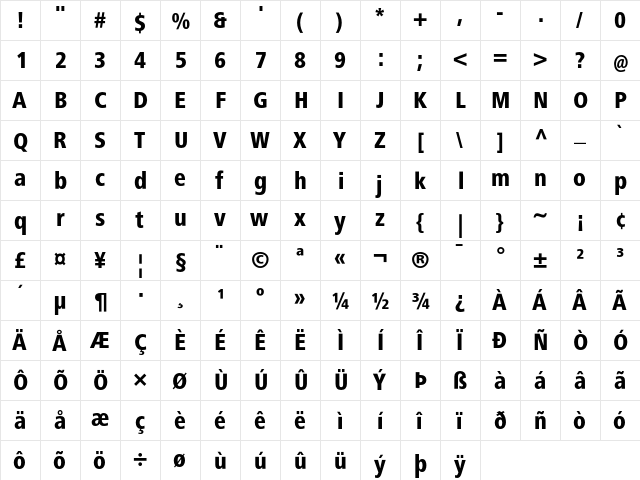
FrutigerNextLT Heavy Cond
Design Context for FrutigerNextLT Typeface
FrutigerNextLT takes a measured approach to typography — its balanced proportions and neutral character make it a reliable workhorse for both digital and print work. The condensed width makes it efficient for tight spaces without sacrificing legibility.